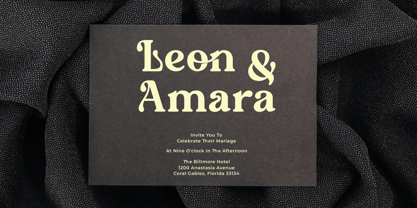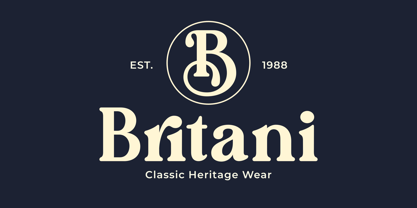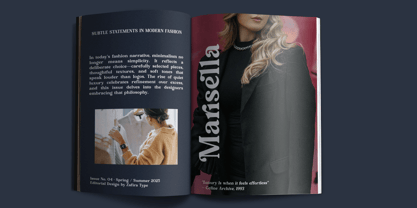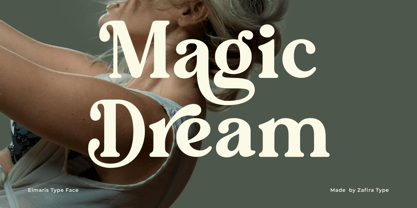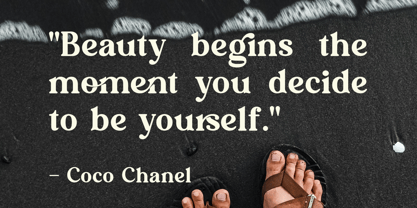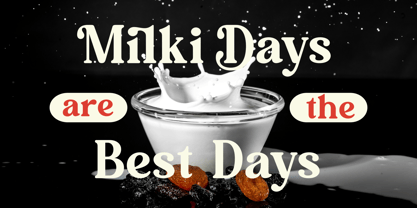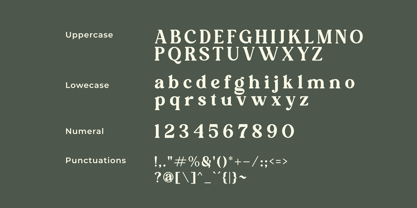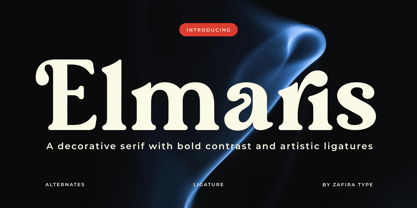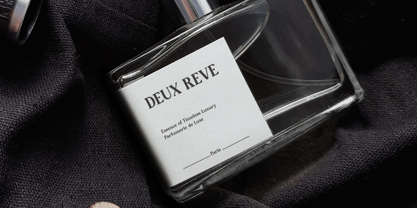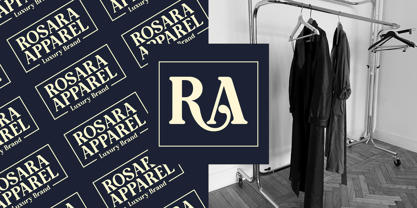
Elmaris
by Zafira Type
The Elmaris Font Family was designed by Su Hirno and published by Zafira Type. Elmaris contains 2 styles and family package options.
Elmaris is a decorative serif typeface with bold contrast and artistic letterforms. Designed with striking curves and expressive ligatures, Elmaris brings a strong personality to headlines, logos, and editorial layouts. It features a set of alternates and stylistic ligatures that make each word feel crafted and intentional. Whether for fashion branding, luxury packaging, or creative typographic posters, Elmaris adds a unique voice to any design.